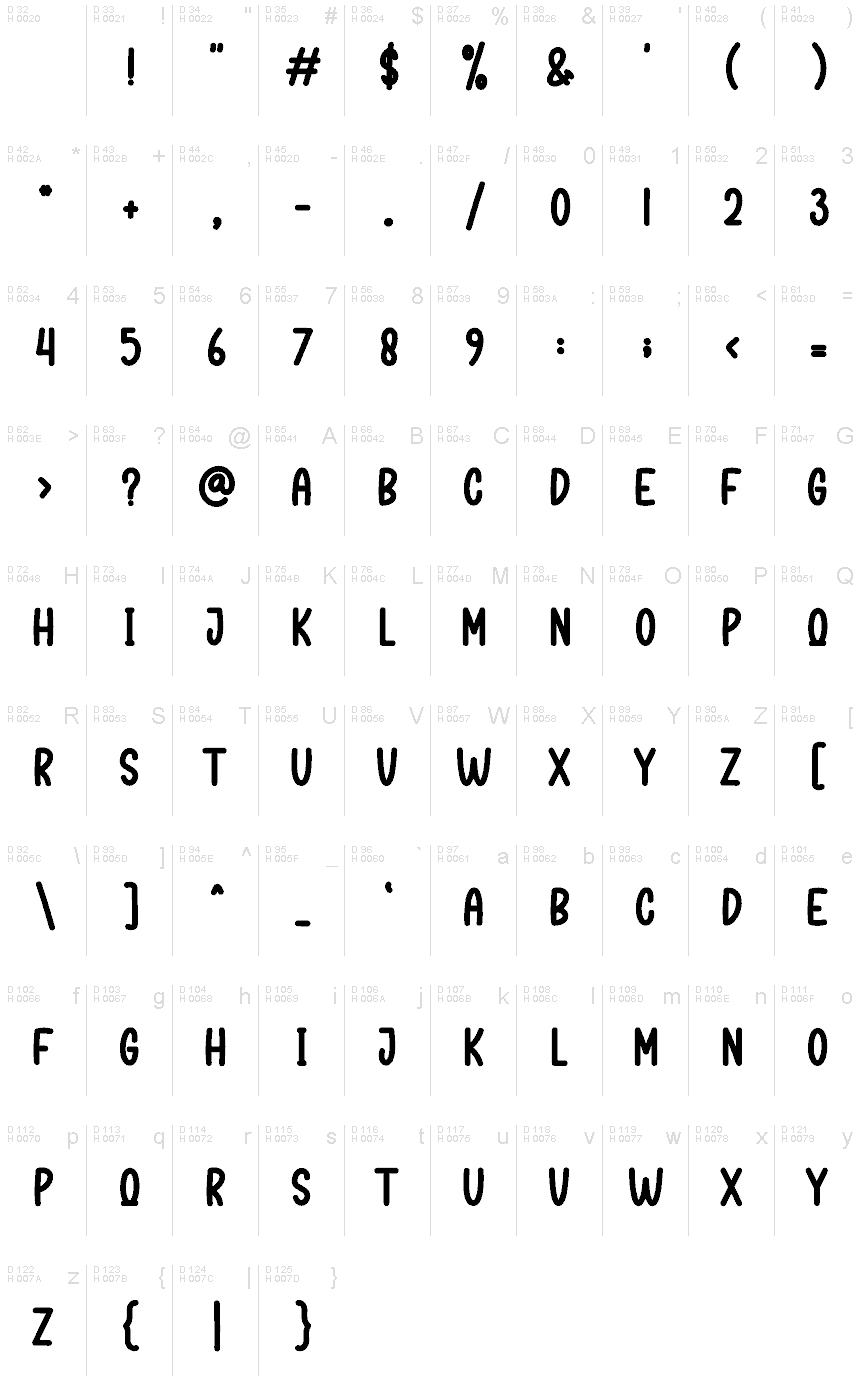
Gripping Night
Gripping Night font by Scratchones is a free handwritten font in condensed width, that combines a rugged casual aesthetic with a contemporary interpretation. A hand-drawn feel and organic texture highlight the dynamic overall look, ideal for grabbing public attention at first glance.
The selection of projects Gripping Night suits includes social media posts, branding designs, product packaging, invitations, and movie poster titles. Websites and mobile apps can also benefit from its visual effect along with book covers or movie poster titles.